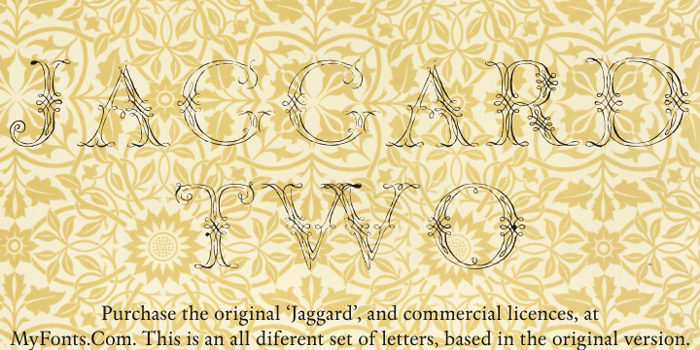
Jaggard Two Font
by Intellecta Design
Jaggard Two, by Intellecta Design
Jaggard Two is an all different set of letters, based in the original Jaggard font, by Intellecta Design. To purchase the original font, and commercial licences, please, visit: